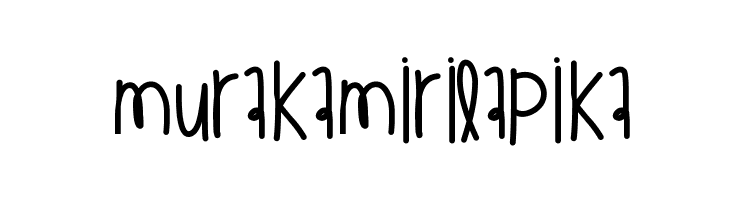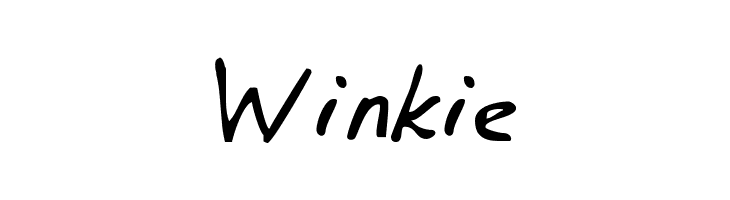
( Fonts by Des Gomez )
A playful, hand-drawn font with tall, narrow characters and a whimsical style.
( Fonts by Des Gomez )
A playful, bold handwritten font with rounded edges and a casual style.
( Fonts by Alex Tomlinson - Skyhaven Fonts - shfonts.com )
A flowing, cursive font with elegant, elongated strokes and a calligraphic style.
A playful, handwritten font with fluid, interconnected strokes.
( Fonts by PaulW - paulw.deviantart.com )
A futuristic, angular font with geometric shapes and sharp edges.
( Fonts by Des Gomez )
A playful, handwritten font with a whimsical and casual style.
A bold, playful font with a textured, dotted pattern and rounded, irregular characters.